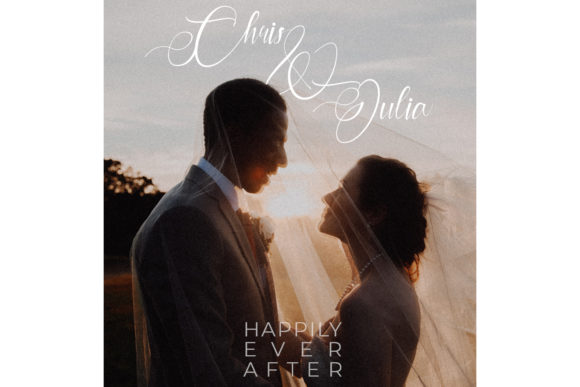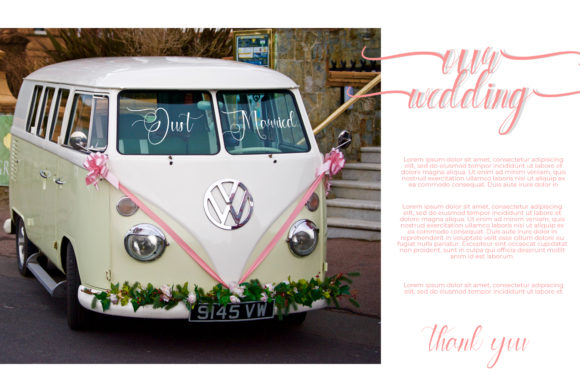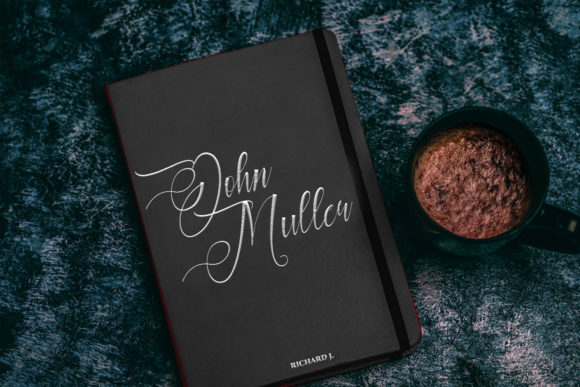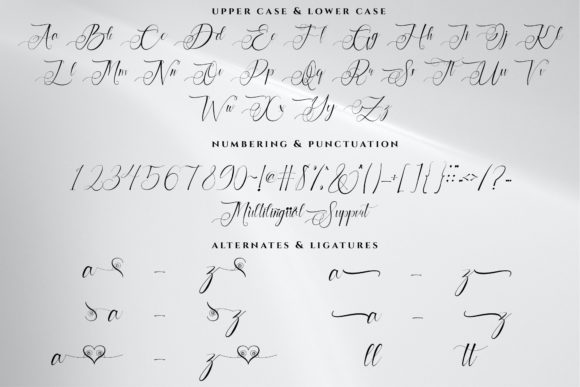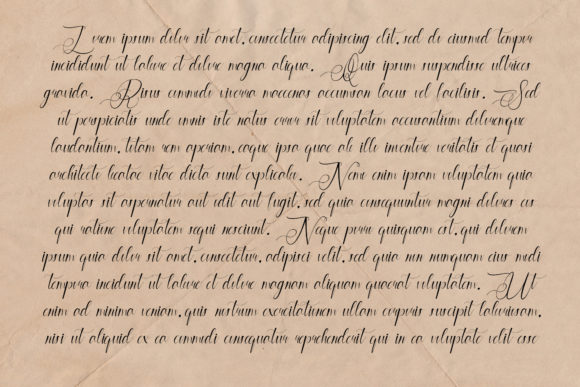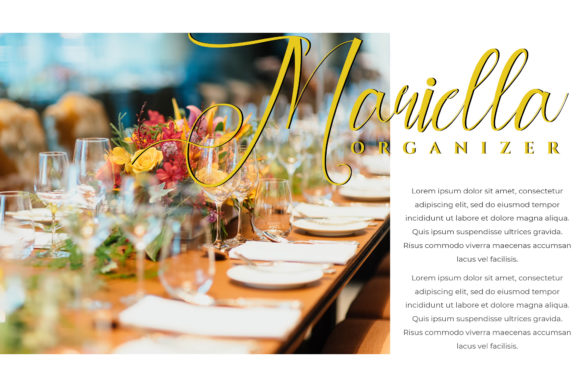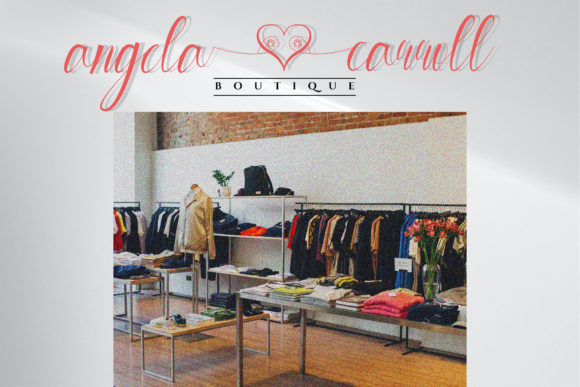
Cynthian Font
About Cynthian Font
Cynthian is an incredibly elegant handwritten font. It is PUA encoded which means you can access all of the glyphs and swashes with ease! It maintains its classy calligraphic influences while feeling contemporary and fresh. Fall in love with this font and bring your projects to the highest levels!